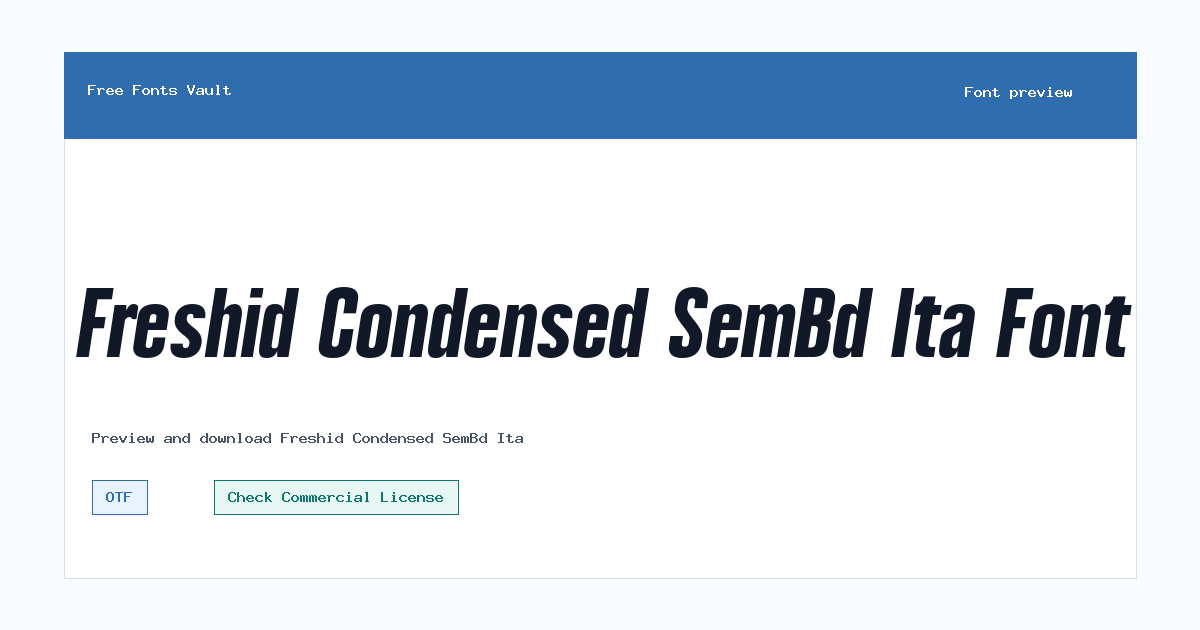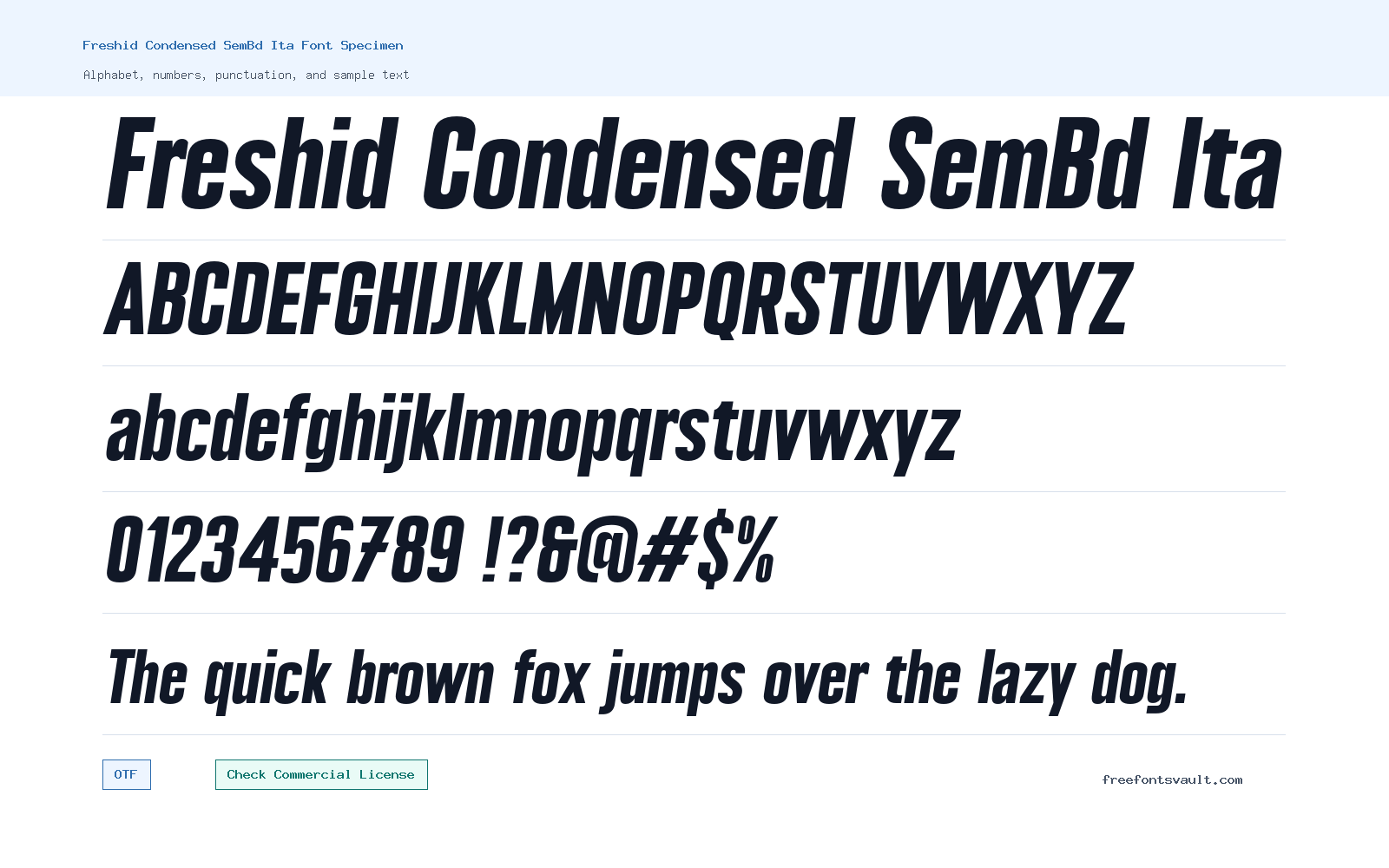
Freshid Condensed SemBd Ita
Freshid Condensed SemBd Ita Font
• Designer Wafi ZImamul
• Foundry Wappitype
Freshid Condensed SemBd Ita font.
Freshid Condensed SemBd Ita is an OTF font with a narrow, slanted style suggested by its name, making it a practical choice for compact headlines, labels, and display text.
About Freshid Condensed SemBd Ita
Freshid Condensed SemBd Ita appears to be a condensed semibold italic member of the Freshid family. The condensed form helps save horizontal space, while the italic angle can add movement to short text. Because the available file is an OTF font, it should work in most modern design apps, including common desktop publishing, graphics, and web design tools that support OpenType files.
Use the preview field to test the words you plan to design with, especially if the text includes long names, numbers, punctuation, or mixed uppercase and lowercase letters. Condensed italic styles often work best in short runs, such as poster titles, quote graphics, package labels, social posts, and website hero text. For longer reading, pair it with a simpler upright font so the layout stays clear.
• Condensed display style suited to tight headline spaces
• Semibold italic naming suggests a heavier slanted style
• Posters and title graphics
• Social media text and quote images
• Brand labels, badges, and packaging mockups
• Website hero headings and short callouts
• Compact editorial headings
Freshid Condensed SemBd Ita is credited to Wafi ZImamul, with Wappitype listed as the foundry.
Keep this font for short, high-impact text. Test spacing at the final size, because condensed italic letterforms can feel crowded when used in small sizes or long paragraphs. The semibold italic cut is useful when a title needs emphasis but the extra-bold italic version feels too loud. It can work nicely for campaign subheads, angled packaging text, and compact editorial labels. Test it beside the regular semibold style so the italic movement feels intentional instead of accidental. Use it sparingly in a family set: one italic emphasis line beside upright headings is usually clearer than several angled lines competing for attention. This helps the italic style stay clear in both wide banners and smaller social graphics.
What kind of font is Freshid Condensed SemBd Ita?
It is an OTF font whose name points to a condensed semibold italic style, best suited to short display text rather than long reading.
Is this font good for body text?
It is better for headlines, labels, and short callouts. For paragraphs, pair it with a clean upright text font.